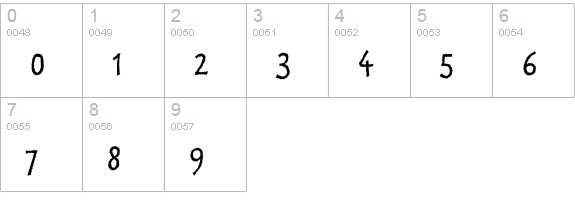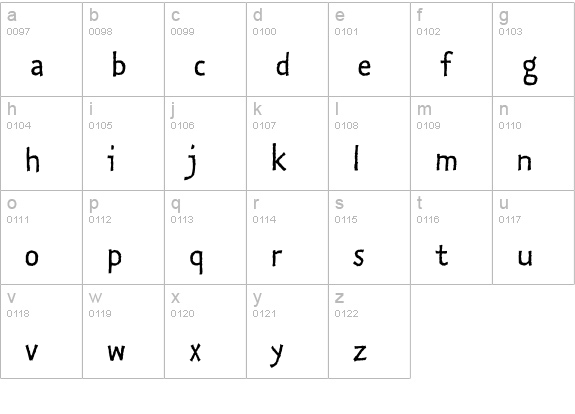
Kosmik-PlainTwo Font Details
Kosmik-PlainTwo font is a modern and sleek typeface that exudes a sense of simplicity and elegance. Its clean lines and minimalist design make it perfect for a wide range of design projects, from branding to web design. The font features a balanced mix of straight and curved lines, creating a harmonious visual appeal that is both eye-catching and easy to read. What sets Kosmik-PlainTwo font apart is that it is available for free download at FontsMarket.com. This means that you can easily access and use this versatile font in your projects without any cost. Whether you are a designer looking to add a touch of sophistication to your work or a business owner in need of a stylish font for your branding, Kosmik-PlainTwo font is the perfect choice. Download it now and elevate your designs with this beautifully crafted typeface.